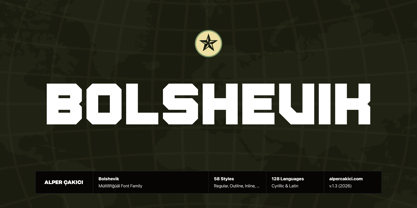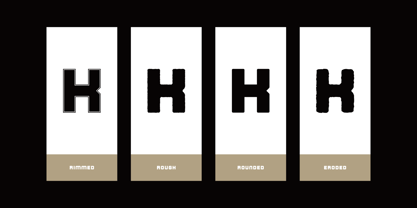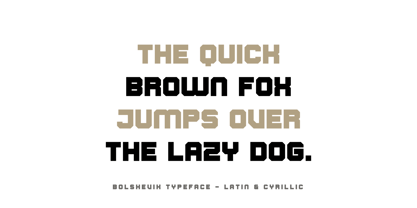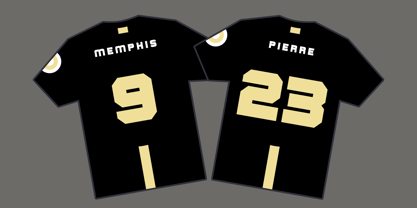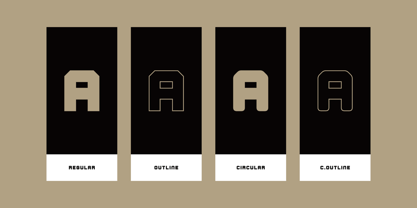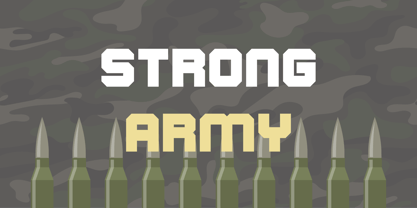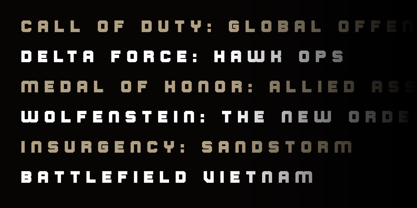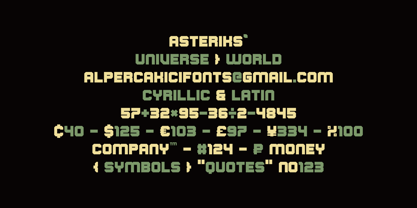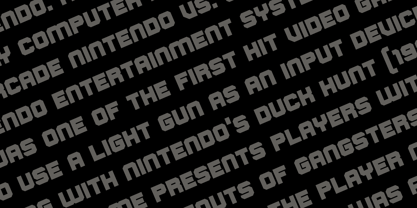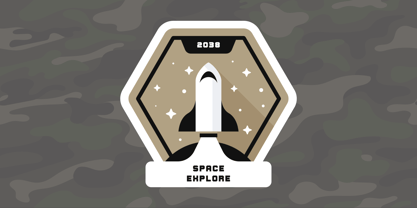
Bolshevik
by AlperCakici
The Bolshevik Font Family was designed by Alper Çakıcı and published by AlperCakici. Bolshevik contains 1 styles.
Bolshevik is a modern, versatile font with excellent kerning, making it ideal for both digital and print use. It features full support for the Cyrillic language, allowing for seamless multilingual communication. Bolshevik's unique design combines classic proportions with a contemporary feel, making it stand out from other same categories fonts.